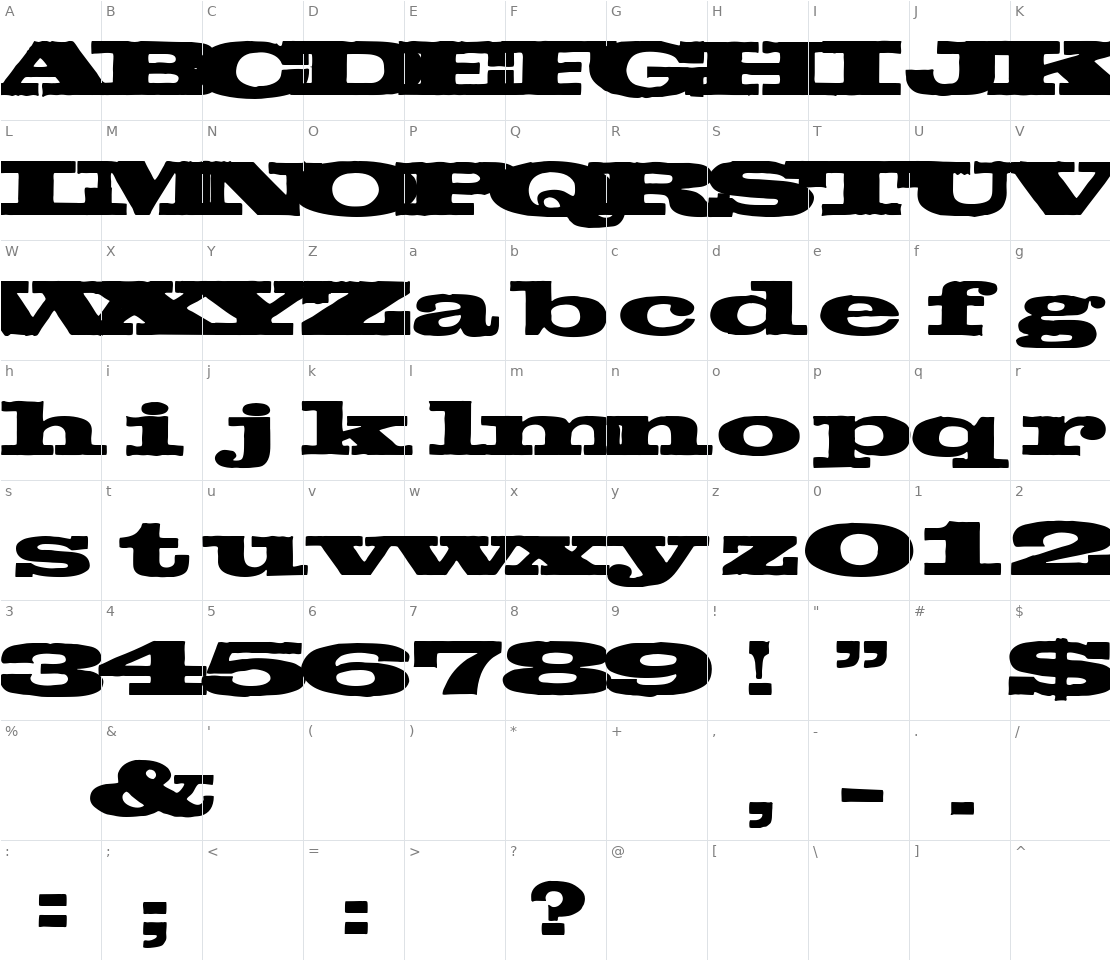
Egyptientto2
Egyptientto2 is a heavy, wide slab serif from Bumbayo Font Fabrik with thick block serifs and extended proportions that give it a dense, planted-on-the-ground solidity. The extra-bold weight and broad letterforms carry a faint Western flavor, like something you'd see on an old saloon sign or a vintage broadside poster. Strictly a display face, built for headlines and titles where you want type that takes up space unapologetically.